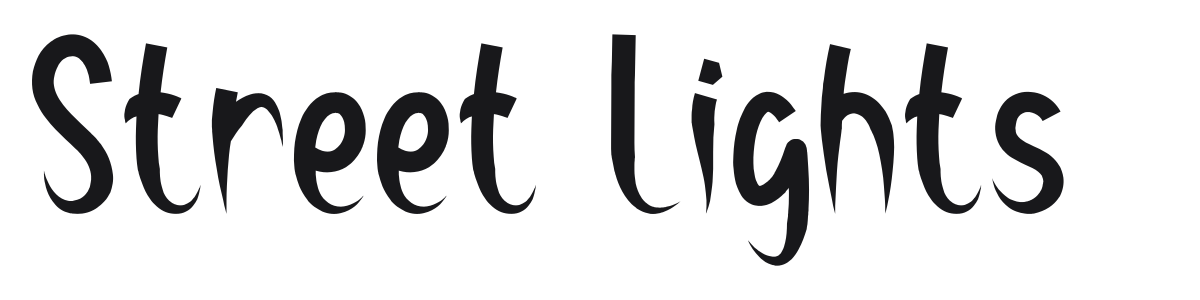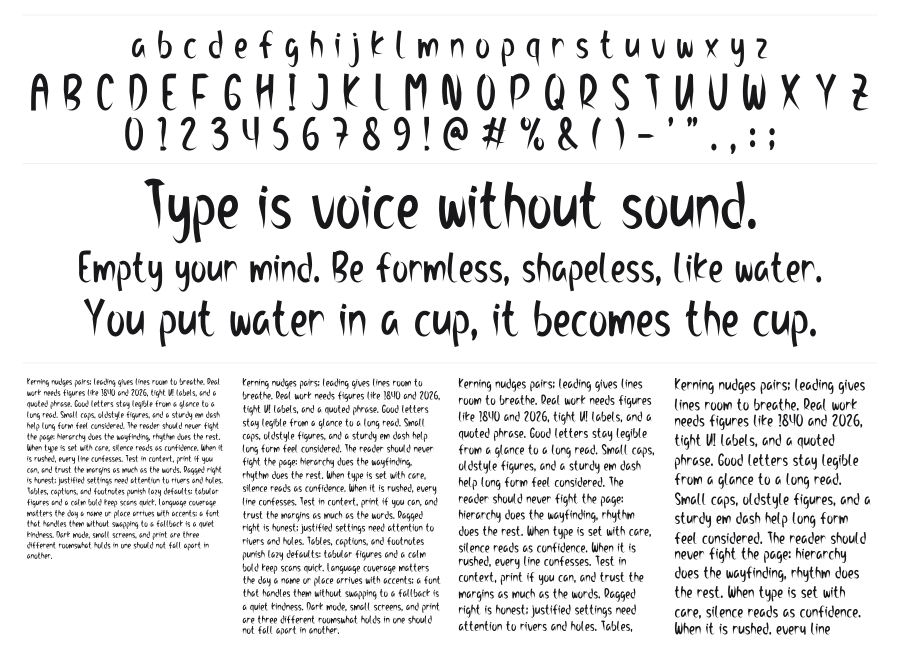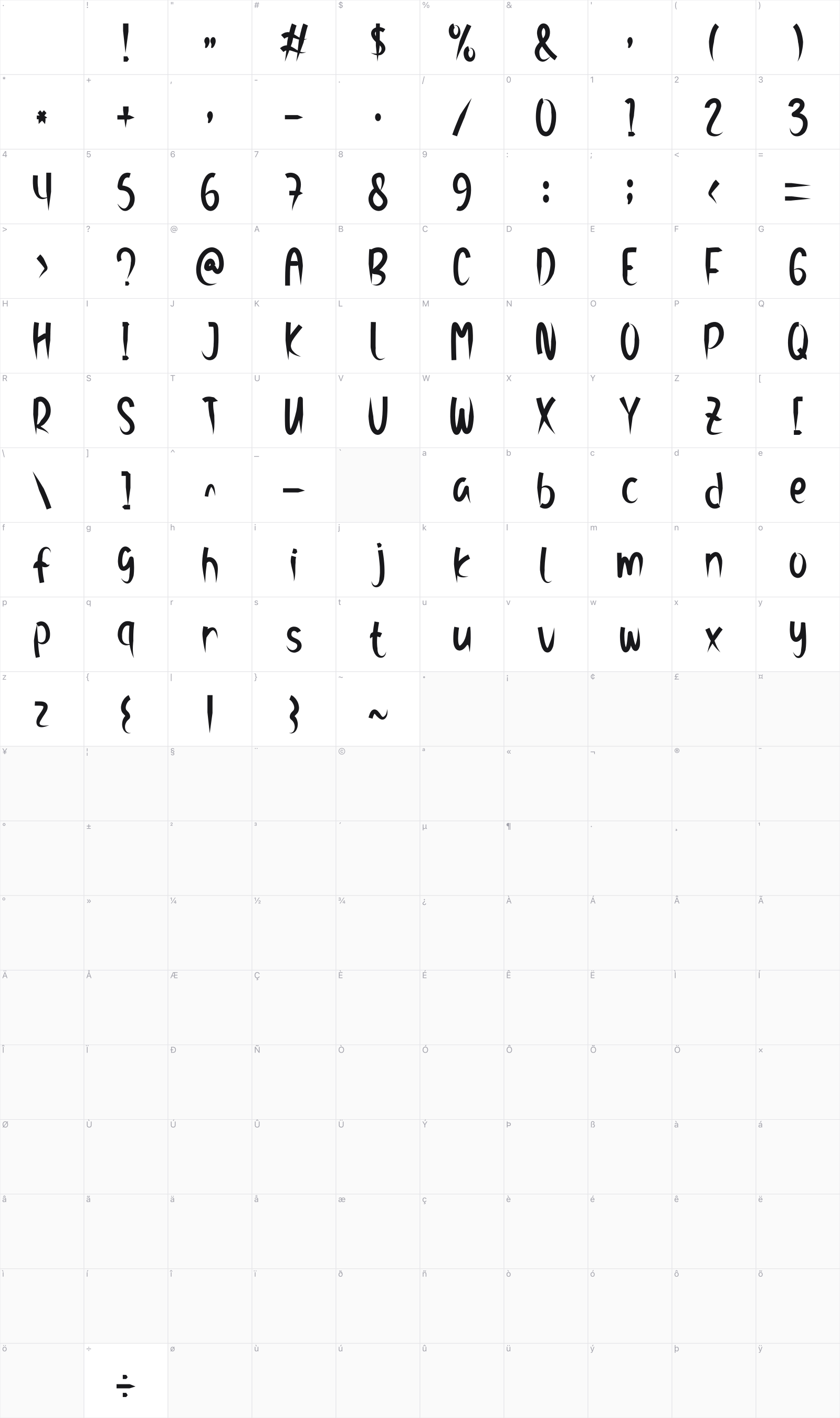
Street Lights
Street Lights is a bold hand-drawn casual display font with an energetic, marker-like quality. The irregular baseline and varying letter heights give it a spontaneous, lived-in personality that works well for youth-oriented branding, event posters, and packaging. It has the kind of looseness that feels intentional rather than sloppy.